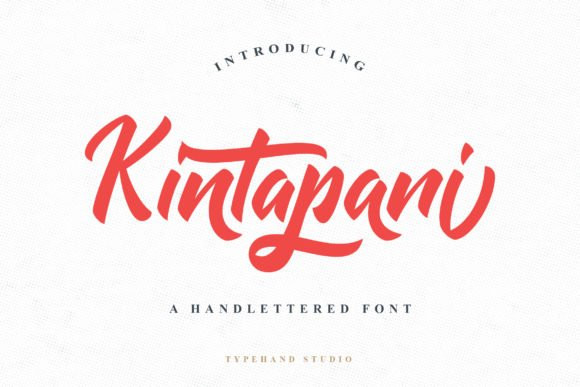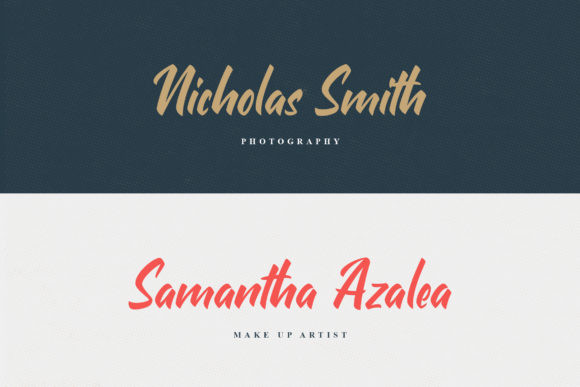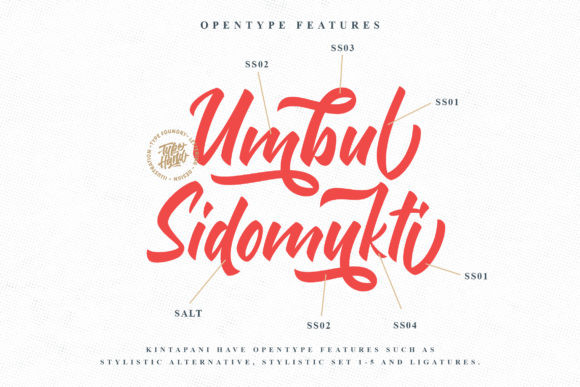
Kintapani Font
Kintapani FontKintapani feels equally charming and elegant. It looks stunning on wedding invitations, thank you cards, quotes, greeting cards, logos, business cards and every other design which needs a handwritten touch.